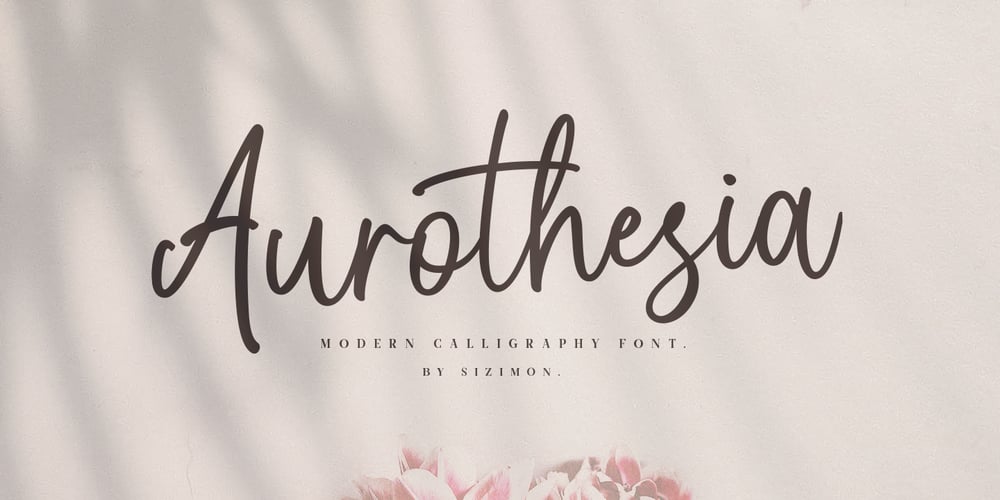
Aurothesia Script Font Family was designed by Faisal Tanjung and published by sizimon. Aurothesia Script contains 2 styles and family package options. Introducing our latest product the Aurotheisa Font Duo! classy, contemporary pair of script and serif fonts. It is free-flowing, feminine, fashionable and friendly. Aurotheisa is perfect for fashion, e-commerce brands, trend blogs, or any business that wants to appear casual and chic.Aurotheisa Includes: Uppercase, lowercase, numeral, punctuation & Symbol Multilingual support Stylistic alternates Discretionary ligatures 4 swash PUA Encoded Characters Fully accessible without additional design software. To access the alternate glyphs, you need a program that supports OpenType features such as Adobe Illustrator CS, Adobe Photoshop CC, Adobe Indesign and Corel Draw.If you have any question please do not hesitate to contact me. Thank You!